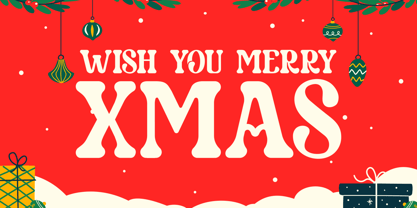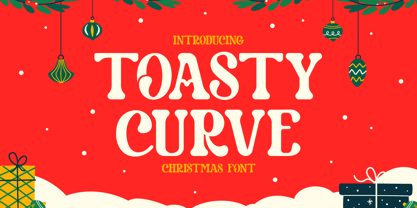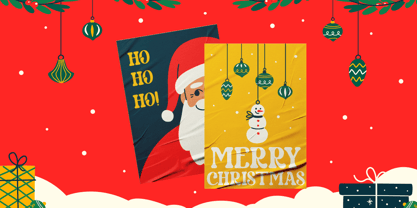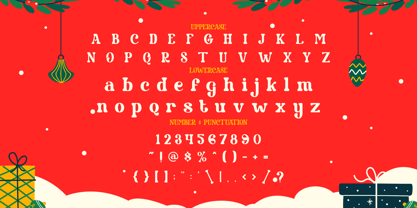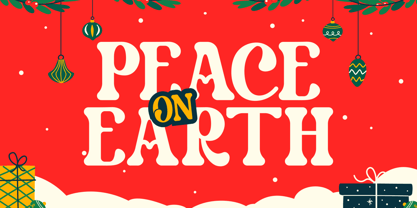
Toasty Curve
by Shanaf
The Toasty Curve Font Family was designed by Yesie Erma Yunita and published by Shanaf. Toasty Curve contains 1 styles. More about this family
Toasty Curve is a festive serif display font that radiates warmth, nostalgia, and seasonal cheer. Each letterform is designed with plump, rounded terminals and playful, slightly exaggerated curves. The thick strokes and soft edges give it a cozy, handmade feel that pairs perfectly with Christmas-themed visuals. Whether it’s uppercase or lowercase, the font maintains great readability while still feeling decorative and joyful. You’ll also find it packed with numbers, punctuation, and cheerful styling suited for various formats.
This font is perfect for Christmas cards, winter packaging, holiday invites, branding for seasonal promotions, and New Year campaigns. The character design blends vintage charm with contemporary elegance, making it versatile for both personal and commercial projects. Toasty Curve works well on posters, stickers, gift tags, product labels, and warm holiday greetings. It sets a friendly tone while keeping your message bold and clear—ideal for adding a festive spark to your holiday designs.
Designers: Yesie Erma Yunita
Foundry: Shanaf
Toasty Curve